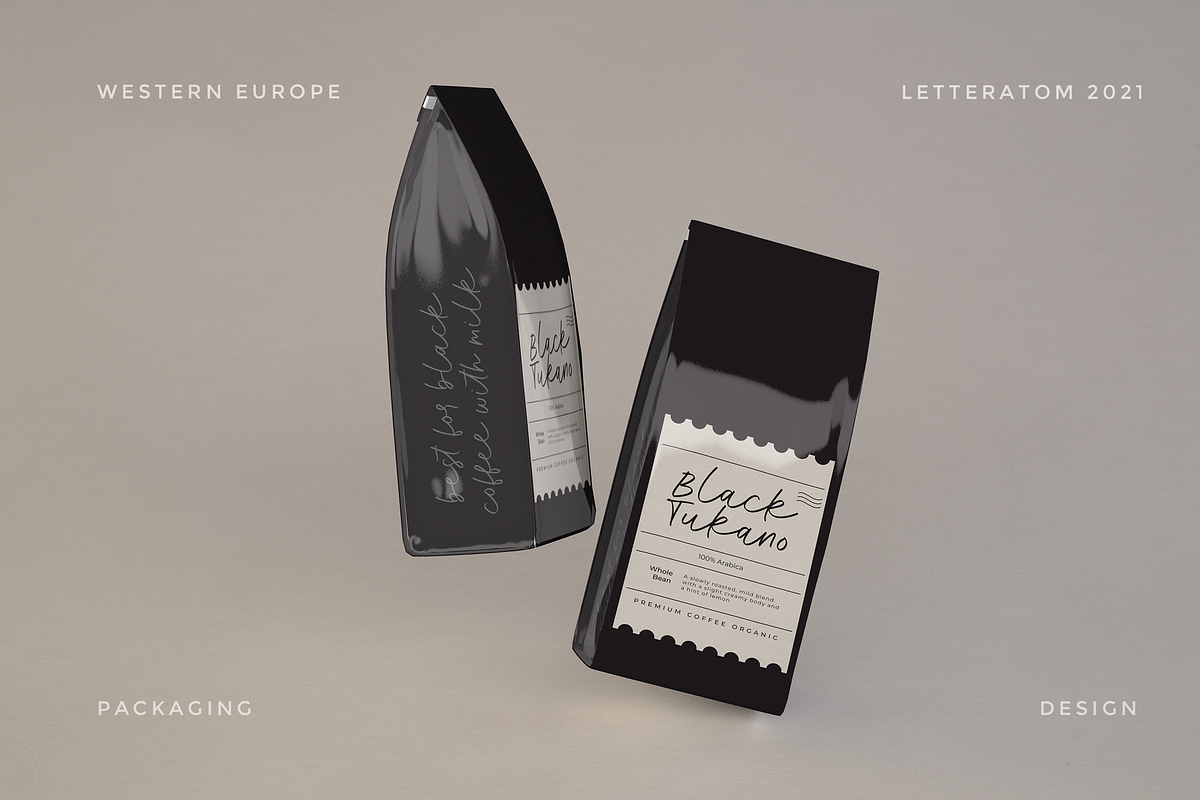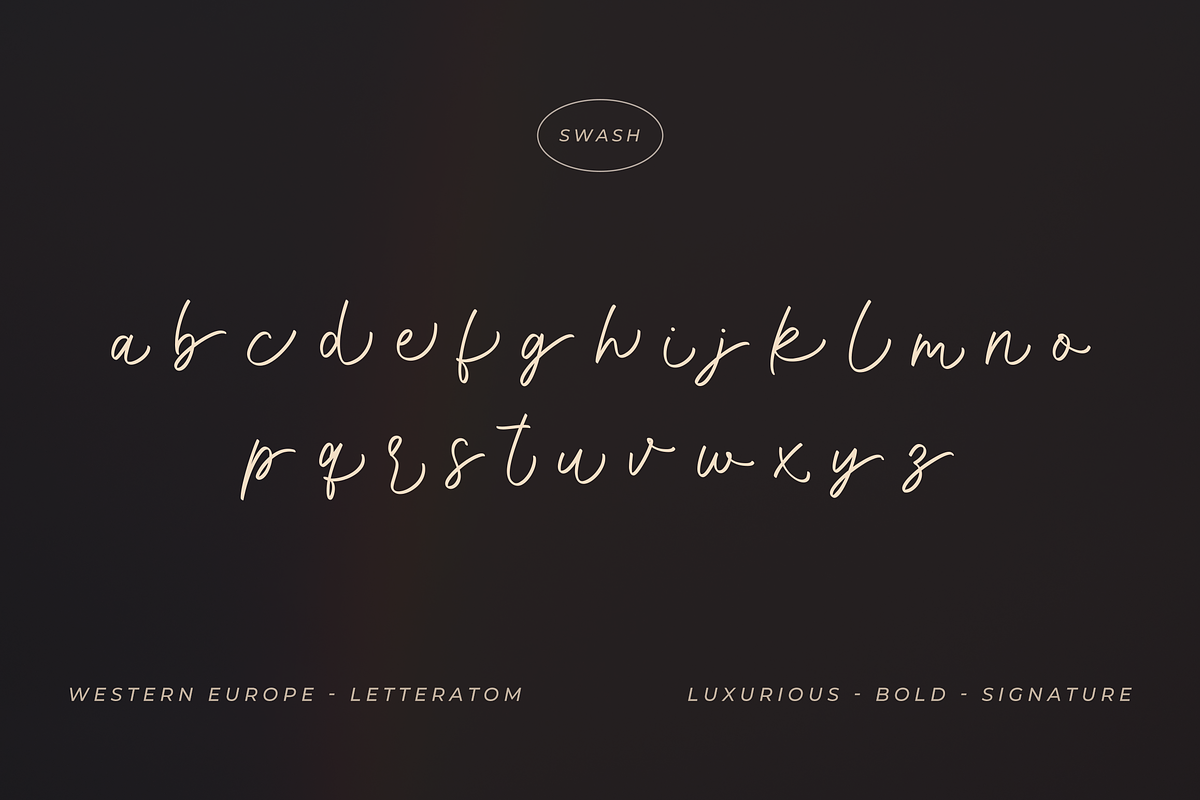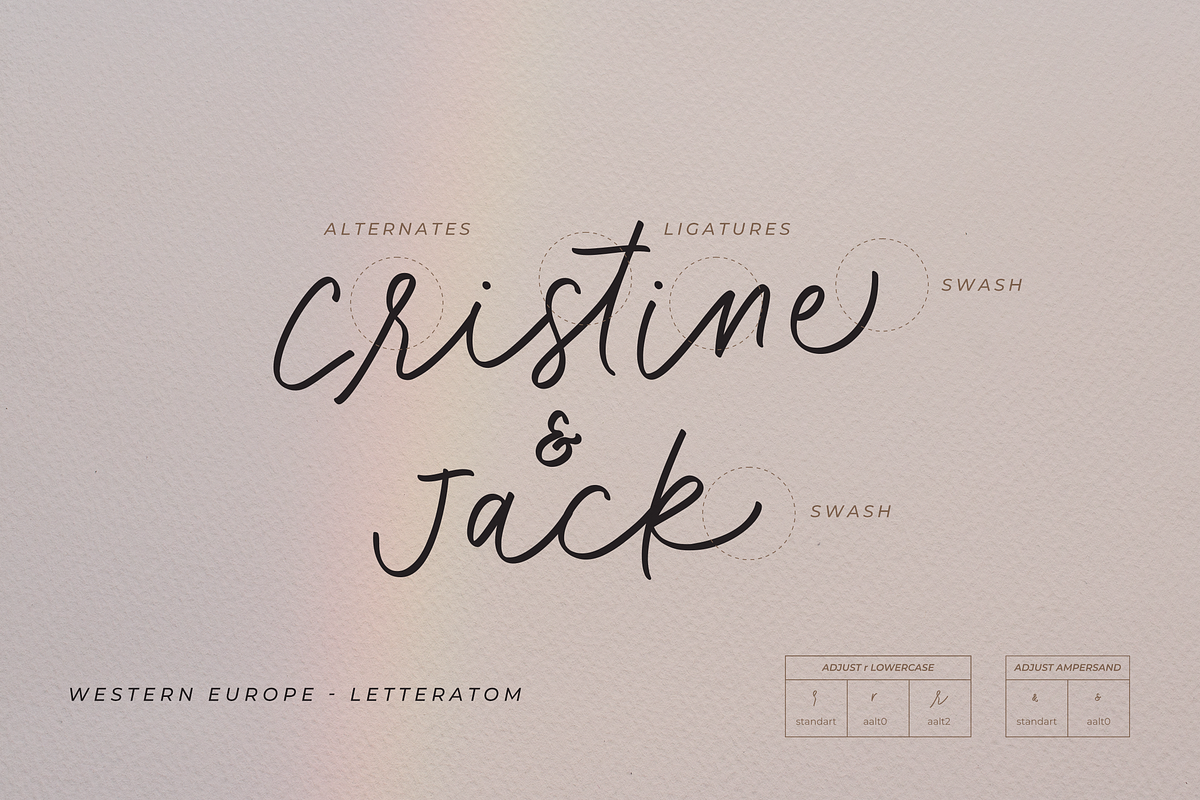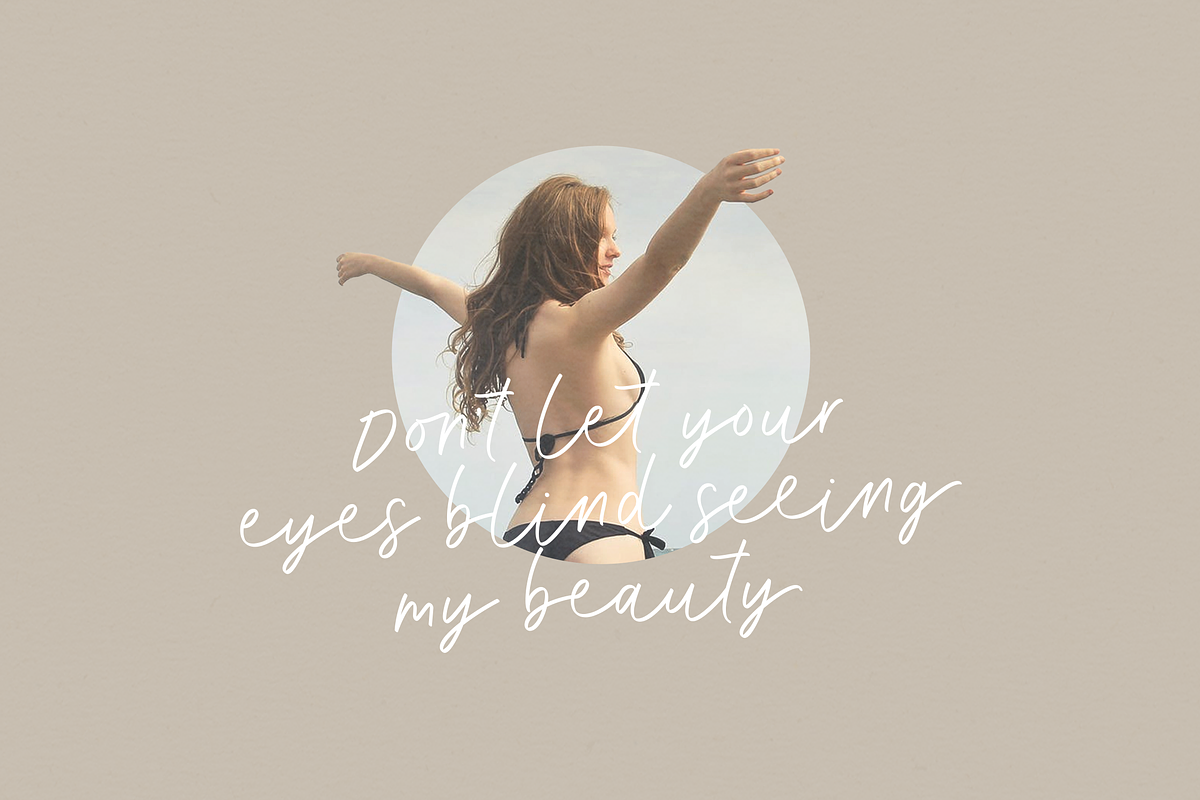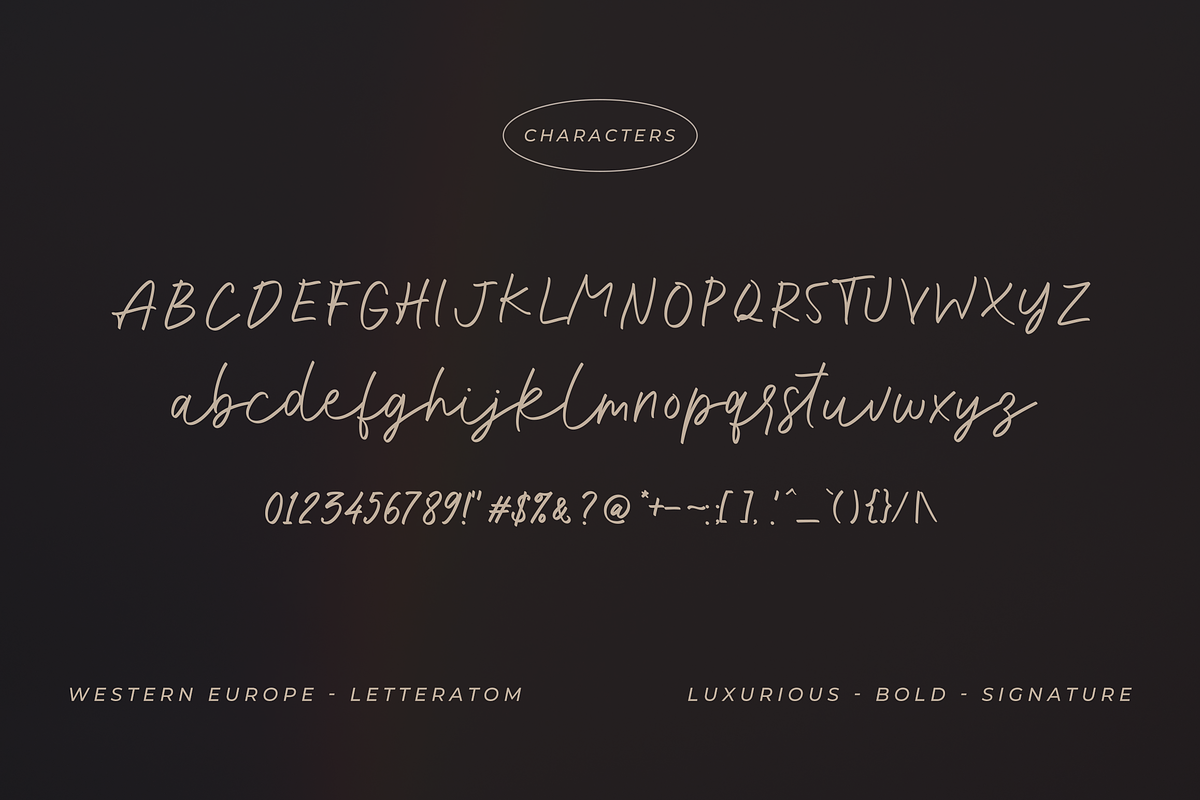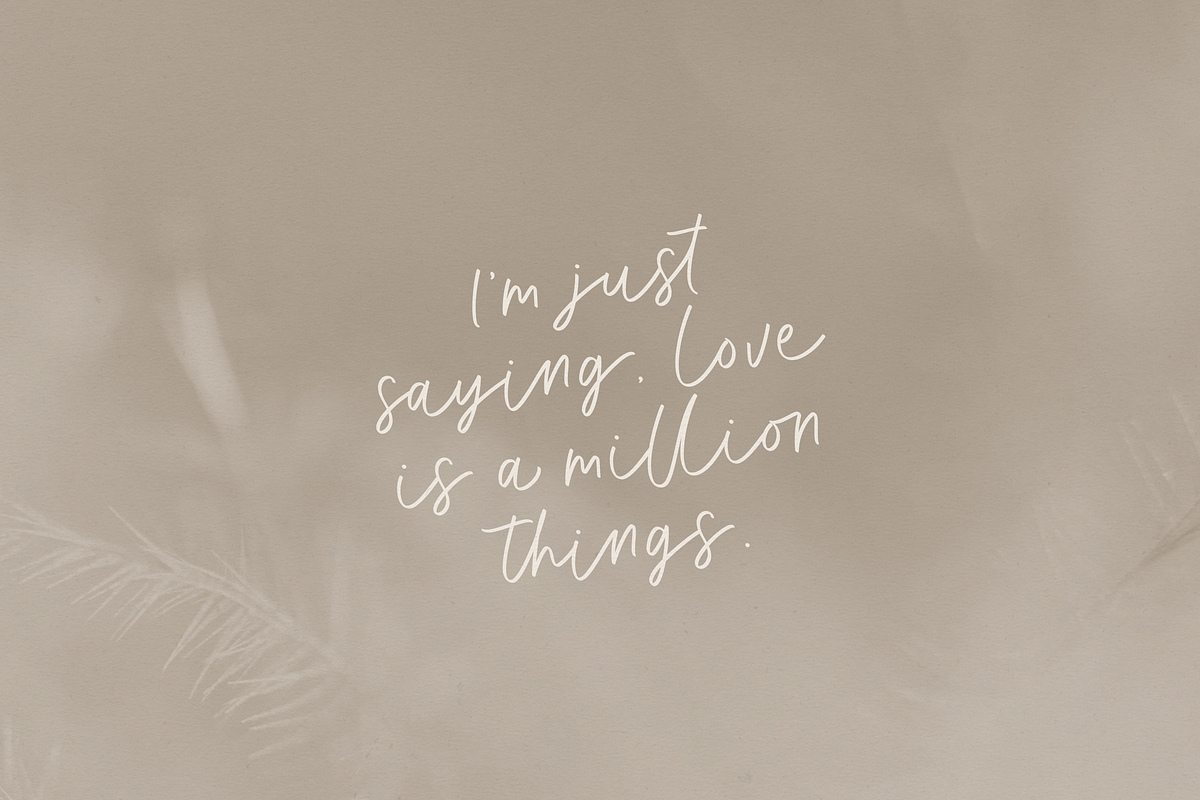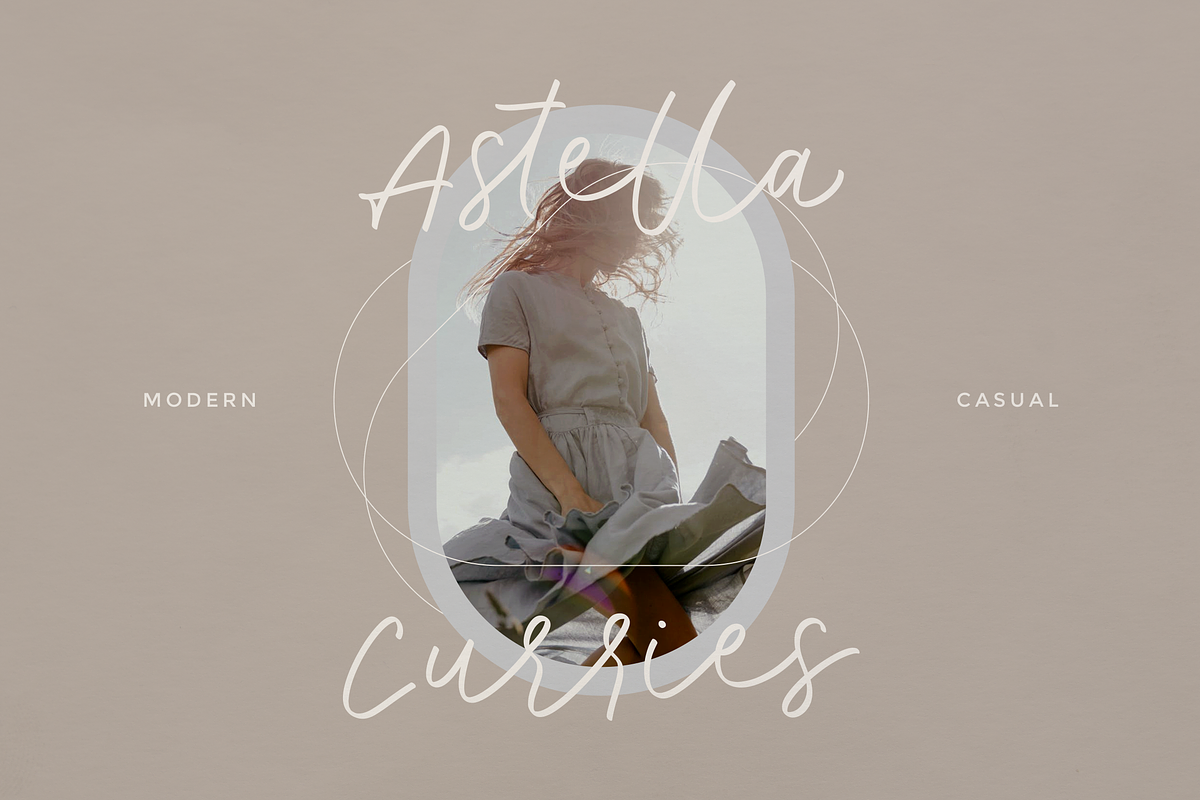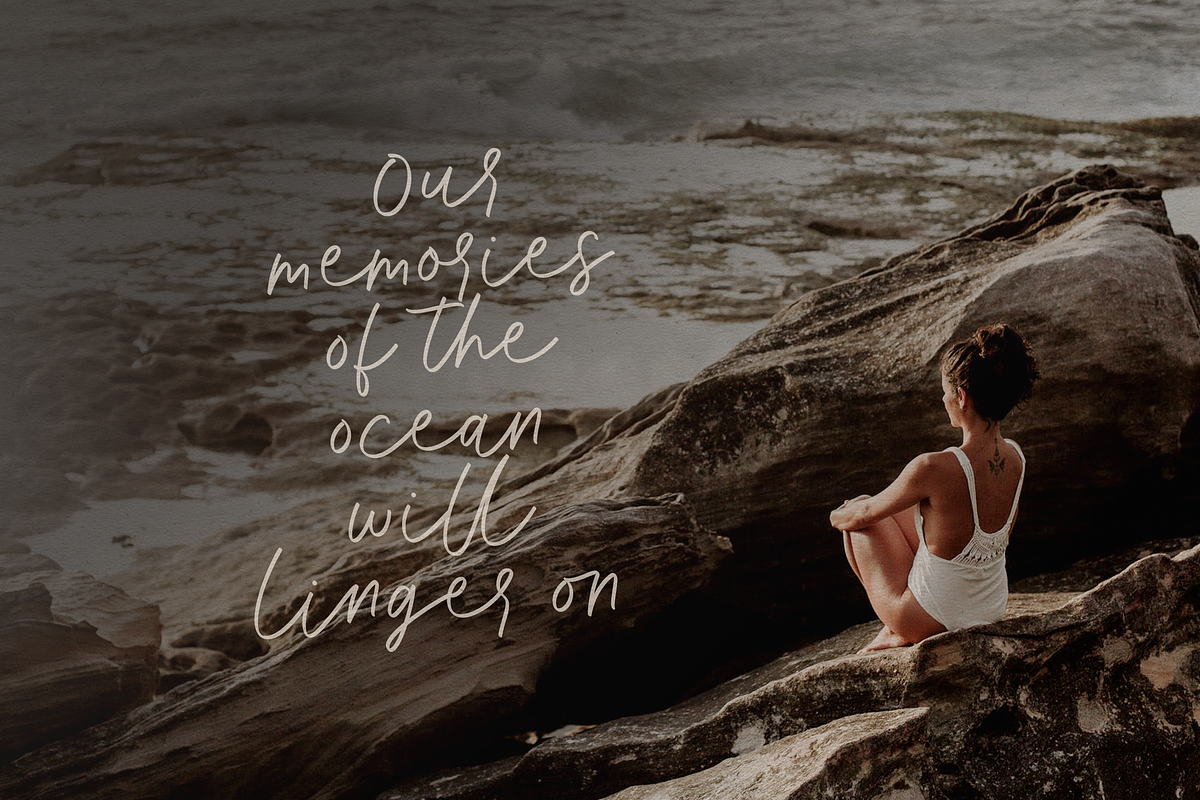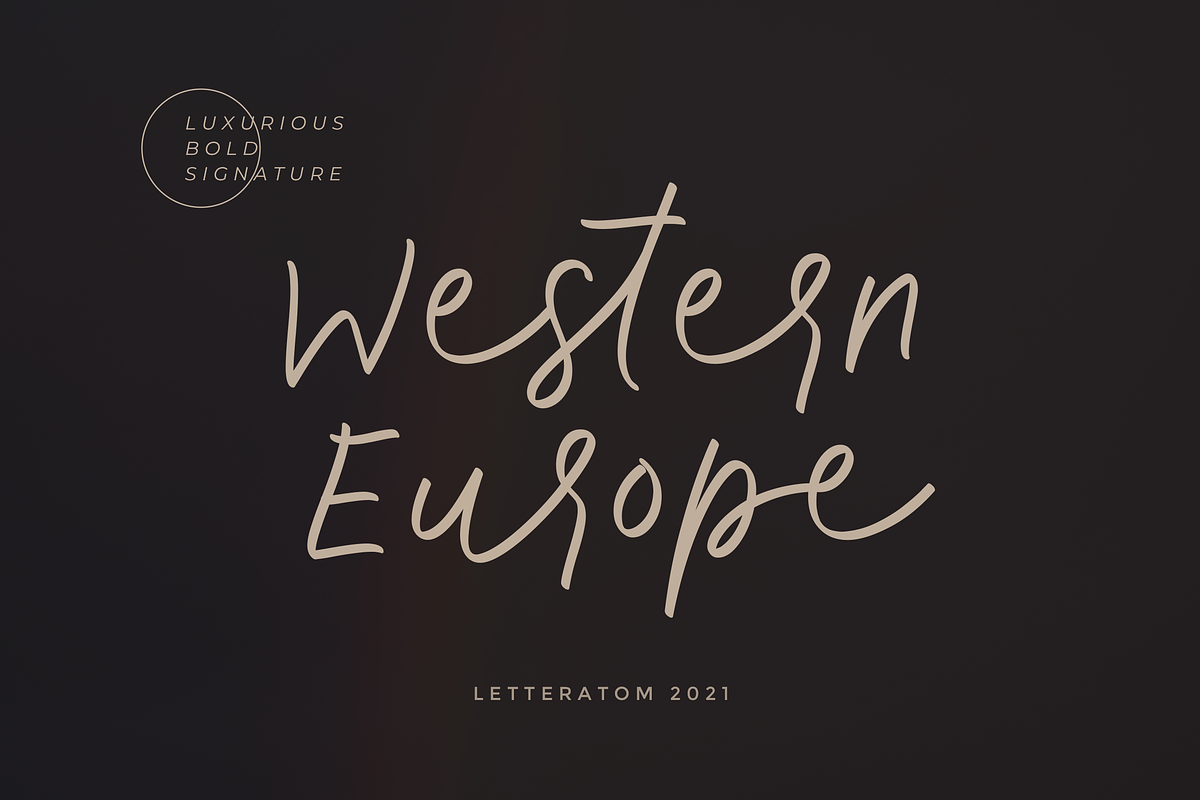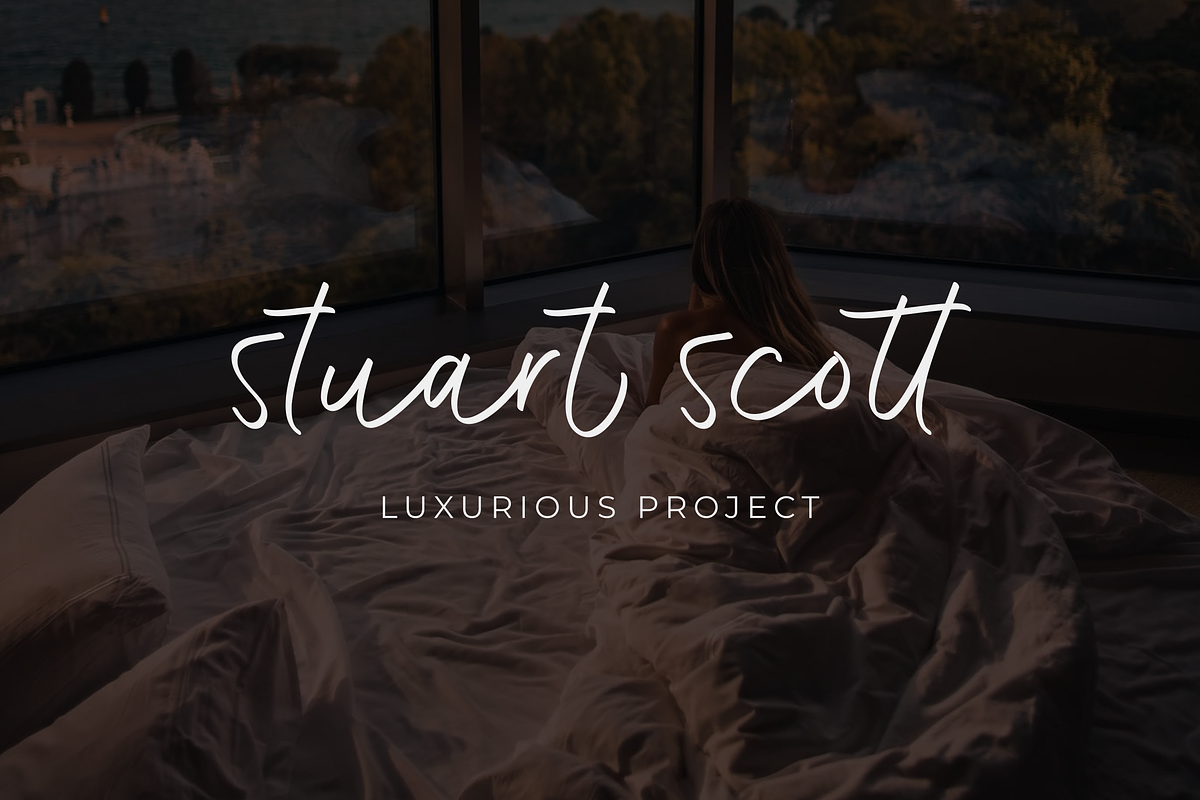
Western Europe | Bold Signature
Western Europe is Luxurious Bold Signature! Cool, confident, and captivating fonts, designed to give a very luxurious feel to any of your designs.
Ligatures: With 29 ligatures included will make the letters look more natural.
Alternate (Alt): There are 2 alternates in it, namely & ampersand and r lowercase. Create perfection in every uppercase and lowercase r.
Swash: 26 swash suffix found on all lowercase letters, create perfection in all your design projects.